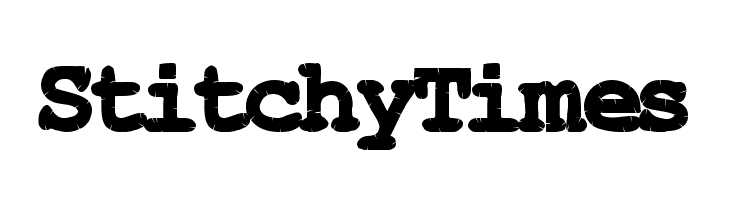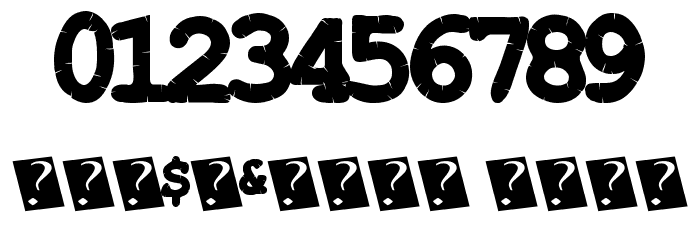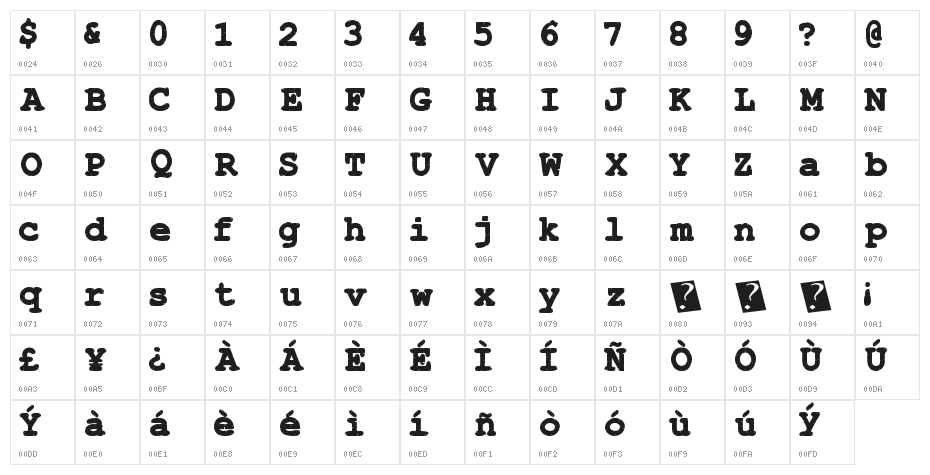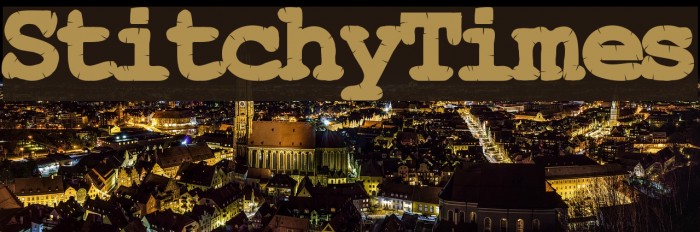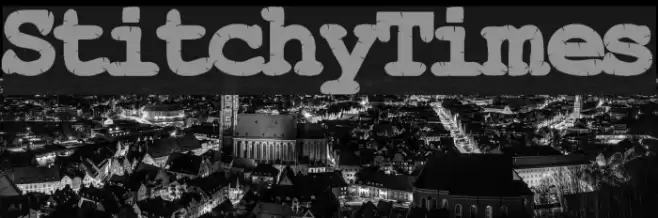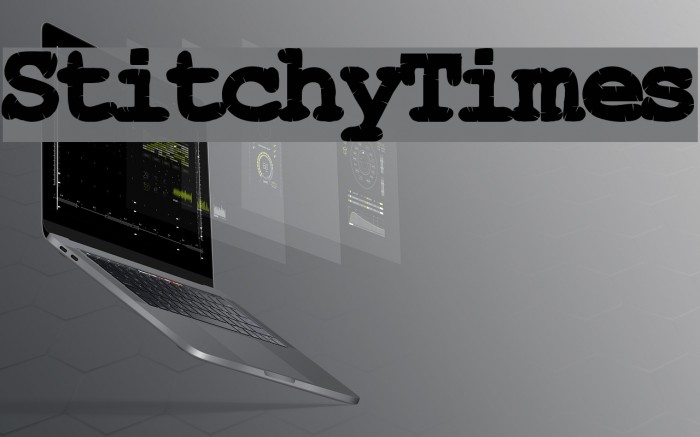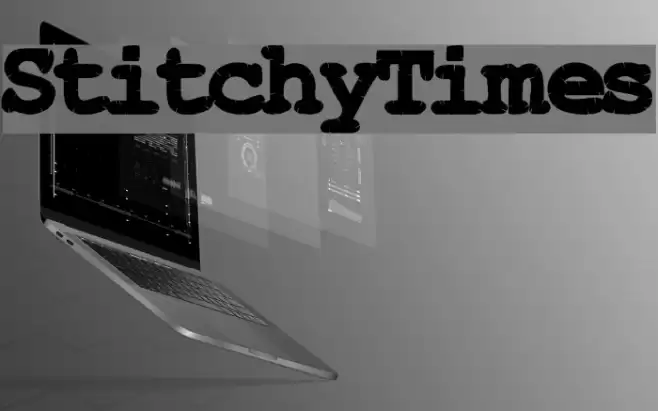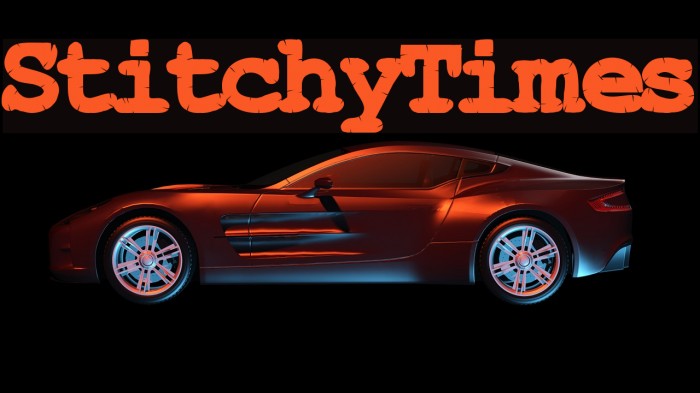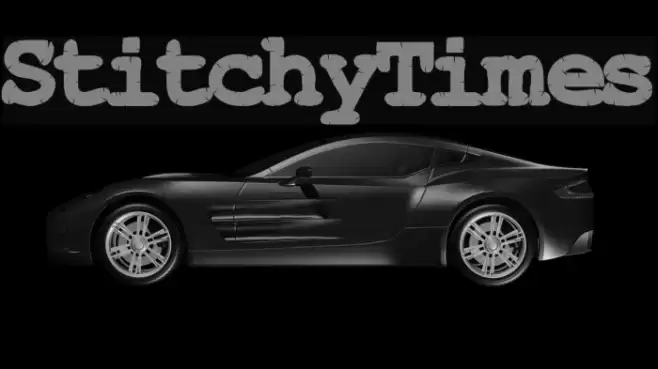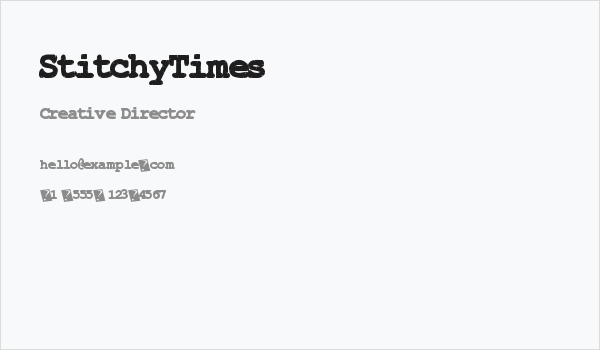
This font features a playful and decorative style, characterized by its bold and chunky letterforms. Each character is adorned with a stitched pattern, giving it a handcrafted and whimsical appearance. The uppercase and lowercase letters maintain a consistent weight, while the numbers and special characters follow the same stitched theme. The font's unique design makes it stand out, perfect for projects that require a touch of creativity and fun. Its boldness ensures readability while the decorative elements add personality.
| Proposed Projects | Ideal for children's books, craft projects, playful branding, and DIY-themed designs. |